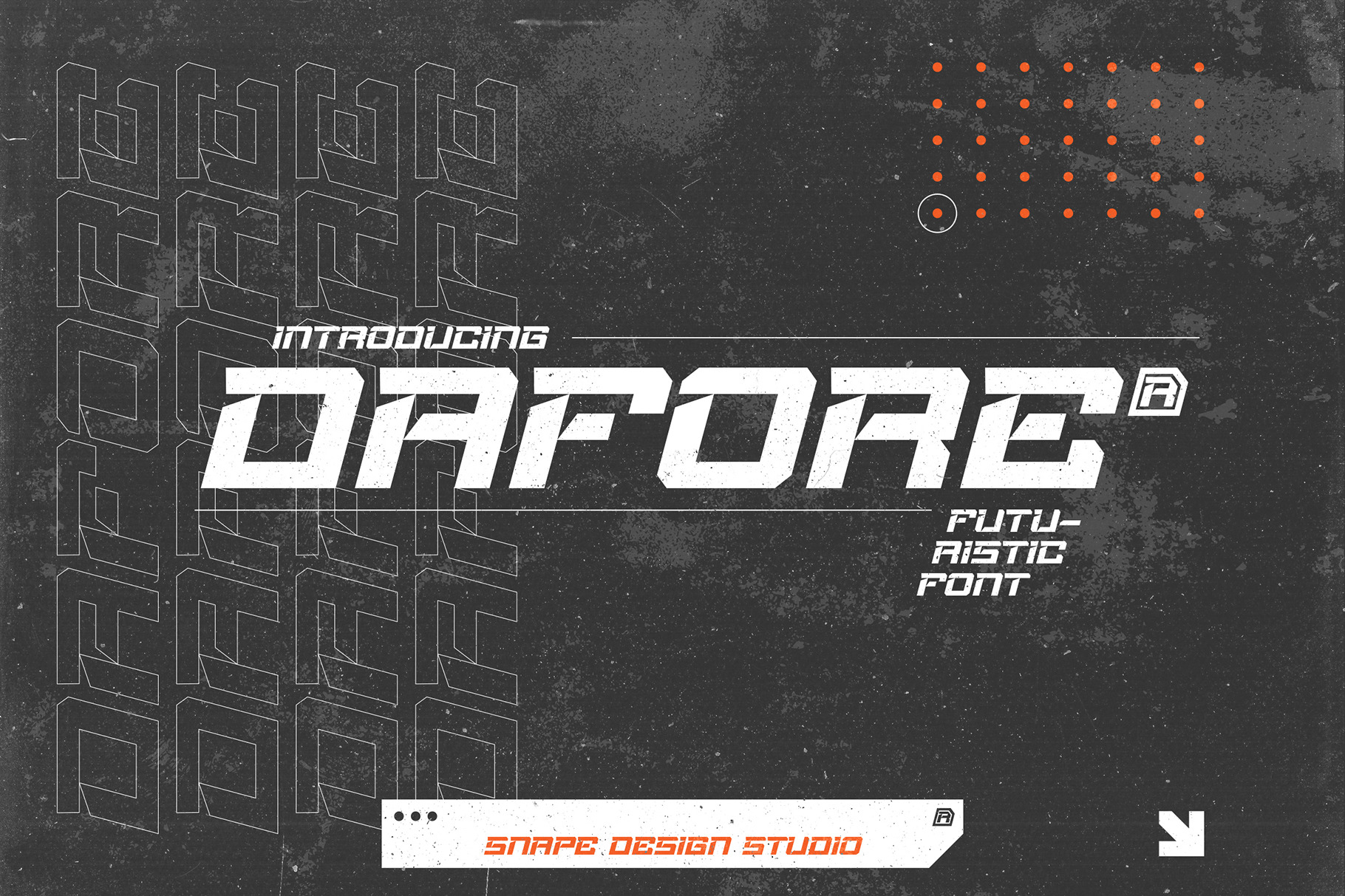
Dafore - Futuristic Font
Dafore is Futuristic font, designed to draw attention and highlight any project that requires a bold feel, look powerful, created to add a vibrant touch to your futuristic designs. Suitable for movie, documenter, film, logo, poster, game, book cover, headlines, title and many more projects. Add this font to your creative ideas and notice how it will make them stand out!
FAMILY FONT : Regular Italic